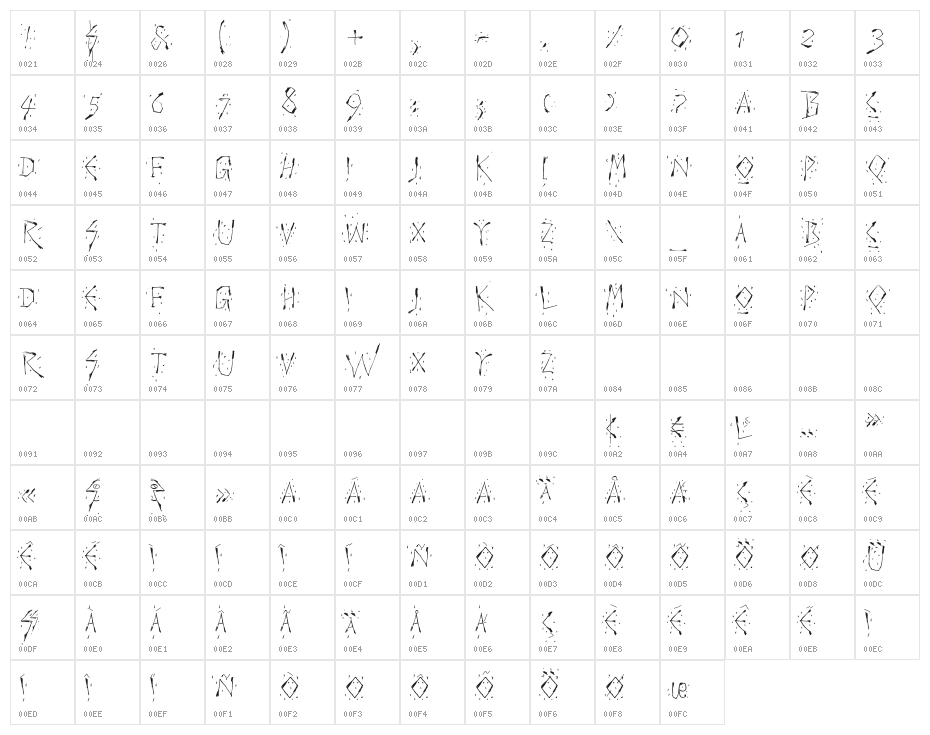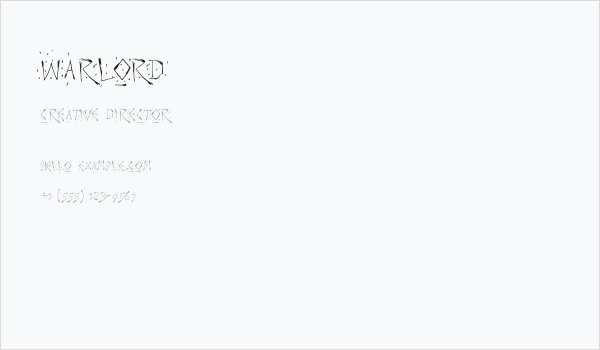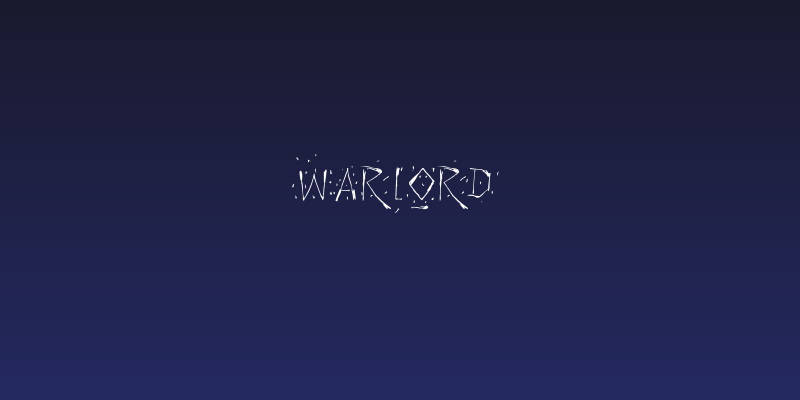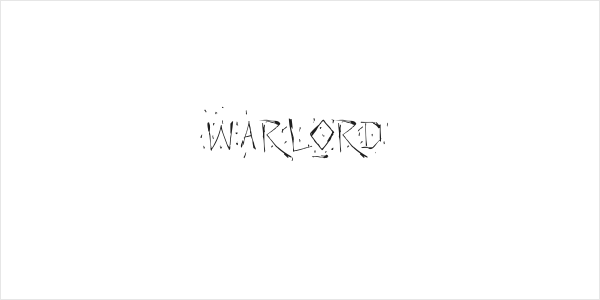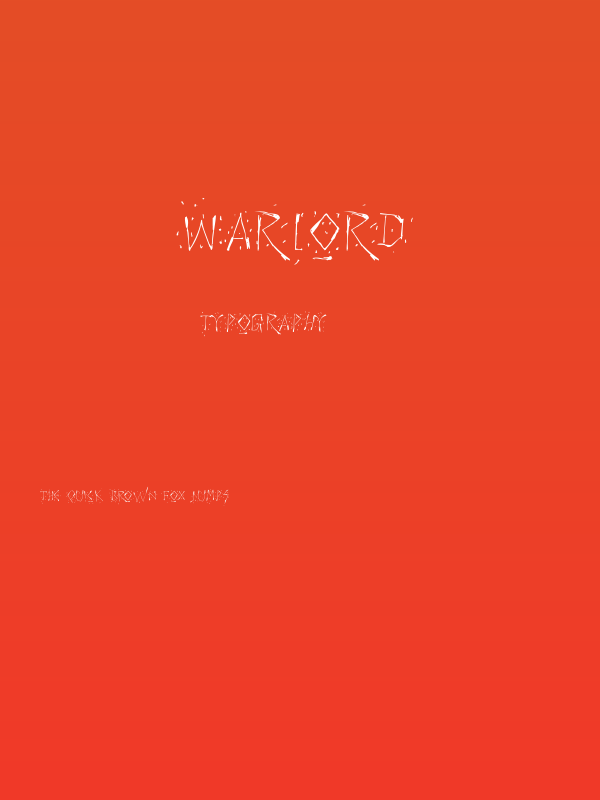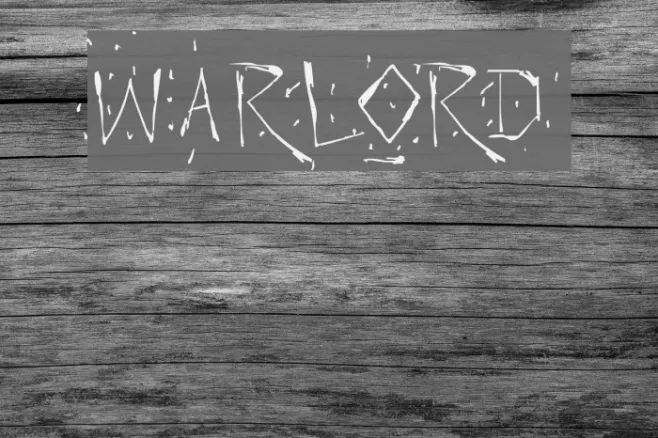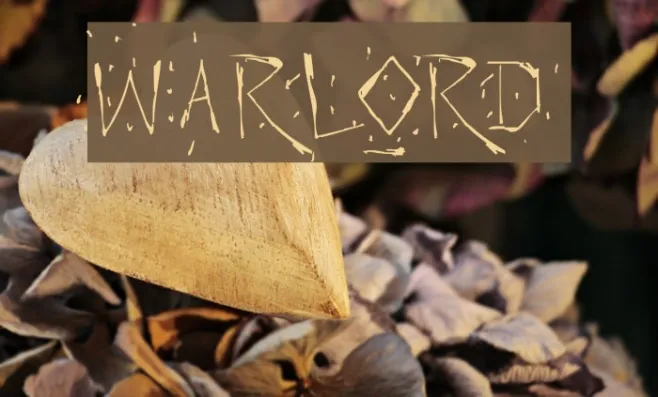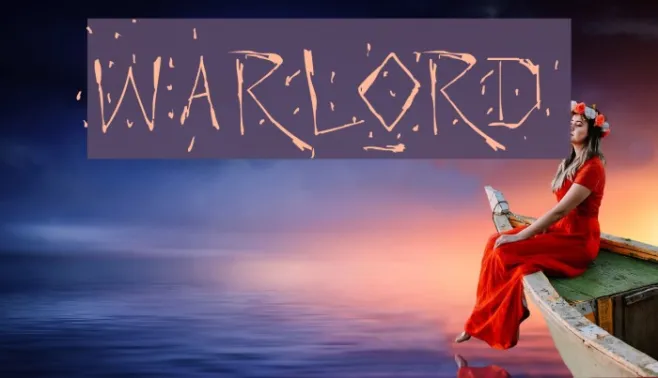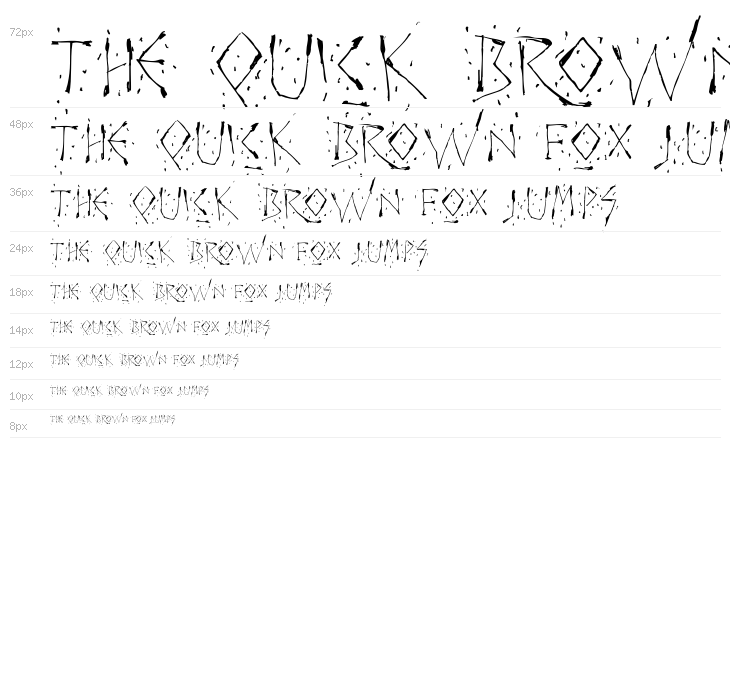
Warlord Font
Warlord Description
This font features a rugged and distressed appearance, reminiscent of ancient or tribal carvings. The characters are irregular and jagged, with a hand-drawn quality that suggests a sense of raw energy and primal expression. The strokes are uneven, with varying thickness that adds to the chaotic and untamed aesthetic. This font is highly decorative, with an emphasis on creating a dramatic and impactful visual presence. The overall look is bold and striking, making it suitable for projects that require a strong and unconventional typeface.
| Proposed Projects | Ideal for use in fantasy-themed designs, video game titles, movie posters, or any project requiring a bold, unconventional typeface. |